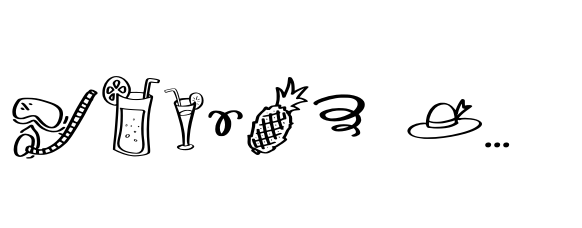
Crafty Beach
by Abo Daniel
The Crafty Beach Font Family was designed by Abo Daniel and published by Abo Daniel. Crafty Beach contains 2 styles and family package options. More about this family
CRAFTY BEACH
-craft font with summer clipart-
it is a simple, natural, and fun handwritten font.
This font is designed for crafters.
It is great for branding, packaging, quotes, t-shirt design, card, banner, cutting, silhouette, and anything of craft project.
I create the summer clipart to complete this font. The clipart is very easy to use.
Features:
- Uppercase
- Lowercase
- Number & punctuations
- Multilingual
- Summer Clipart